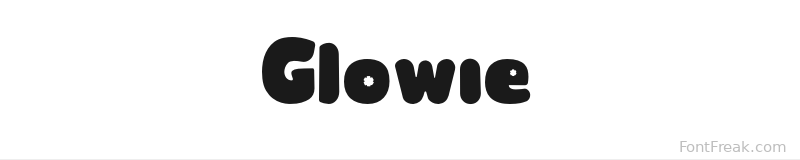
Glowie
Glowie is a captivating display typeface designed by Kong Font, released in 2019 under a freeware license. This font falls into the decorative category, characterized by its playful and rounded forms. The strokes exhibit a consistent weight with minimal contrast, giving it a friendly and approachable appearance. The spacing is well-balanced, allowing for easy readability while retaining a whimsical charm. The overall design incorporates subtle decorative elements, enhancing its visual appeal without overwhelming the viewer.
Glowie is particularly well-suited for a variety of creative projects. Its cheerful and modern aesthetic makes it an excellent choice for wedding invitations, where it can evoke a sense of joy and celebration. Additionally, it shines in the realm of children's book covers, capturing the imagination with its inviting shapes. Restaurant menus can benefit from Glowie's unique flair, making dishes stand out and engaging customers. It's also an ideal option for social media graphics, allowing content creators to add a touch of fun to their posts. Small business owners looking to establish a memorable brand identity will find this font to be a fantastic asset.
Targeting graphic designers and content creators, Glowie offers a versatile option for anyone seeking to enhance their visual communication. Its distinct style appeals to those who want to infuse personality and creativity into their projects.
What sets Glowie apart is its ability to convey warmth and friendliness, making it perfect for brands that prioritize approachability. The Glowie font free download provides an accessible way for users to incorporate this unique typeface into their designs, ensuring that every project can benefit from its delightful character. Whether for personal use or professional branding, Glowie stands out as a truly versatile and engaging typeface.